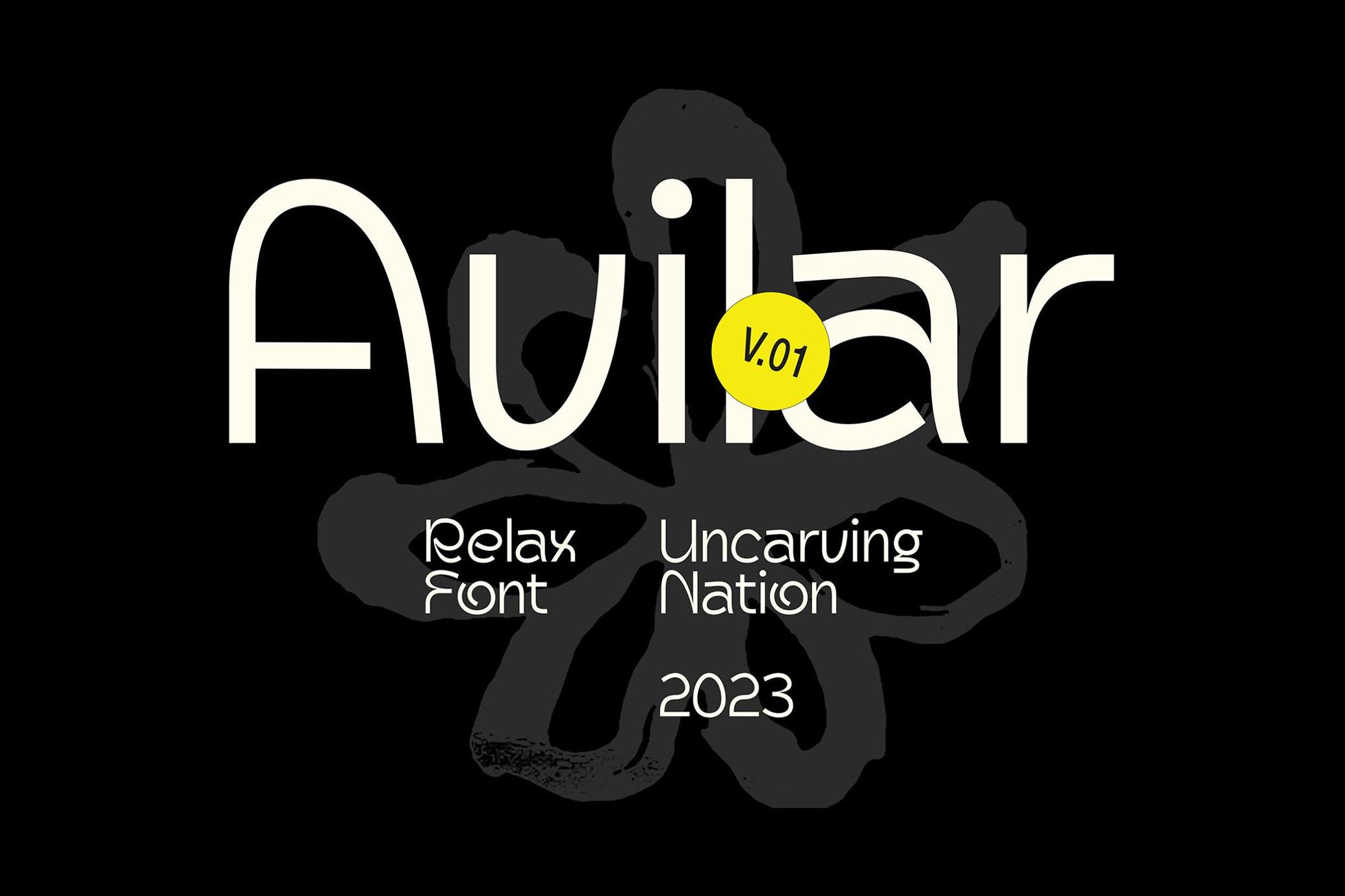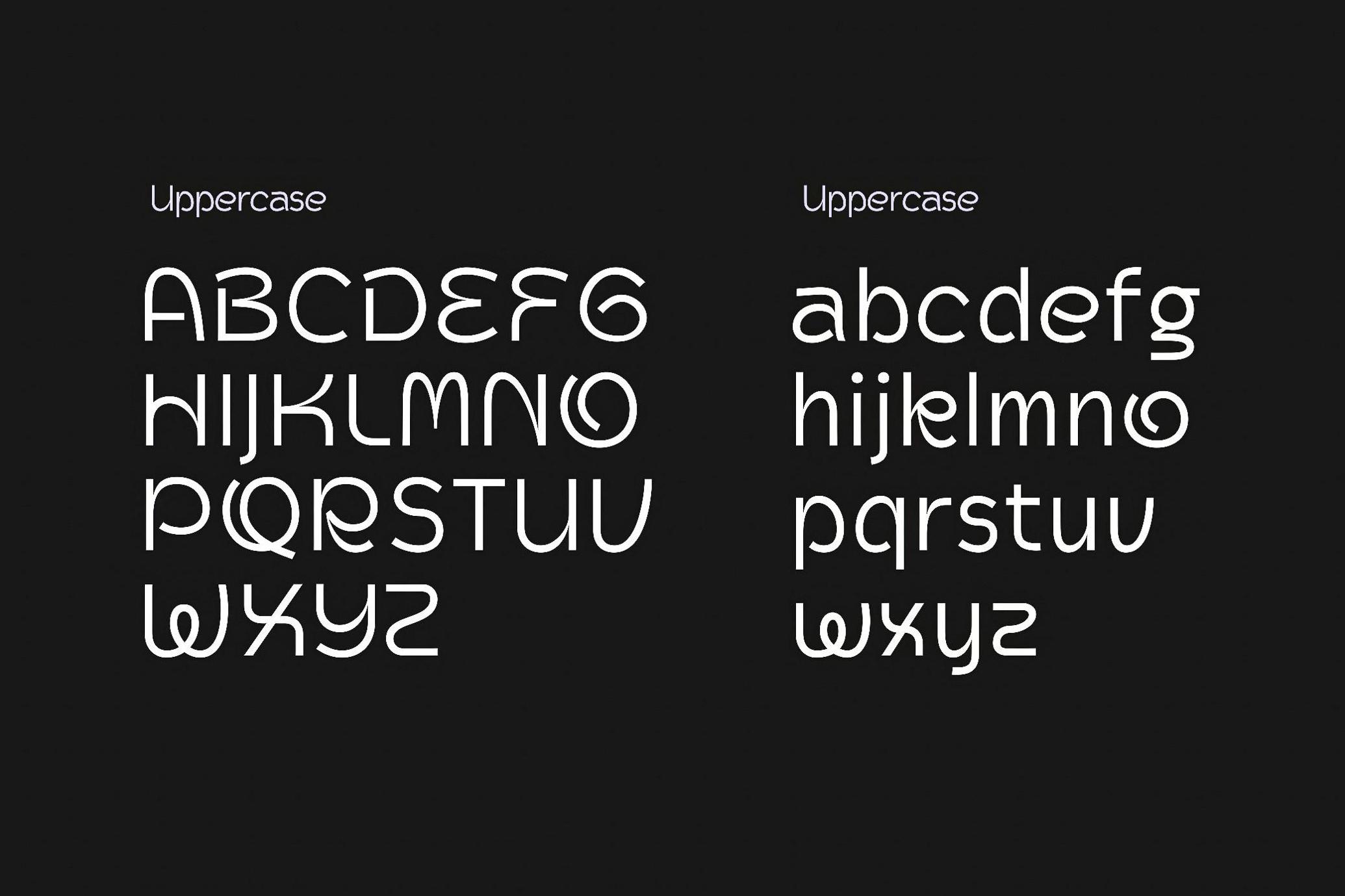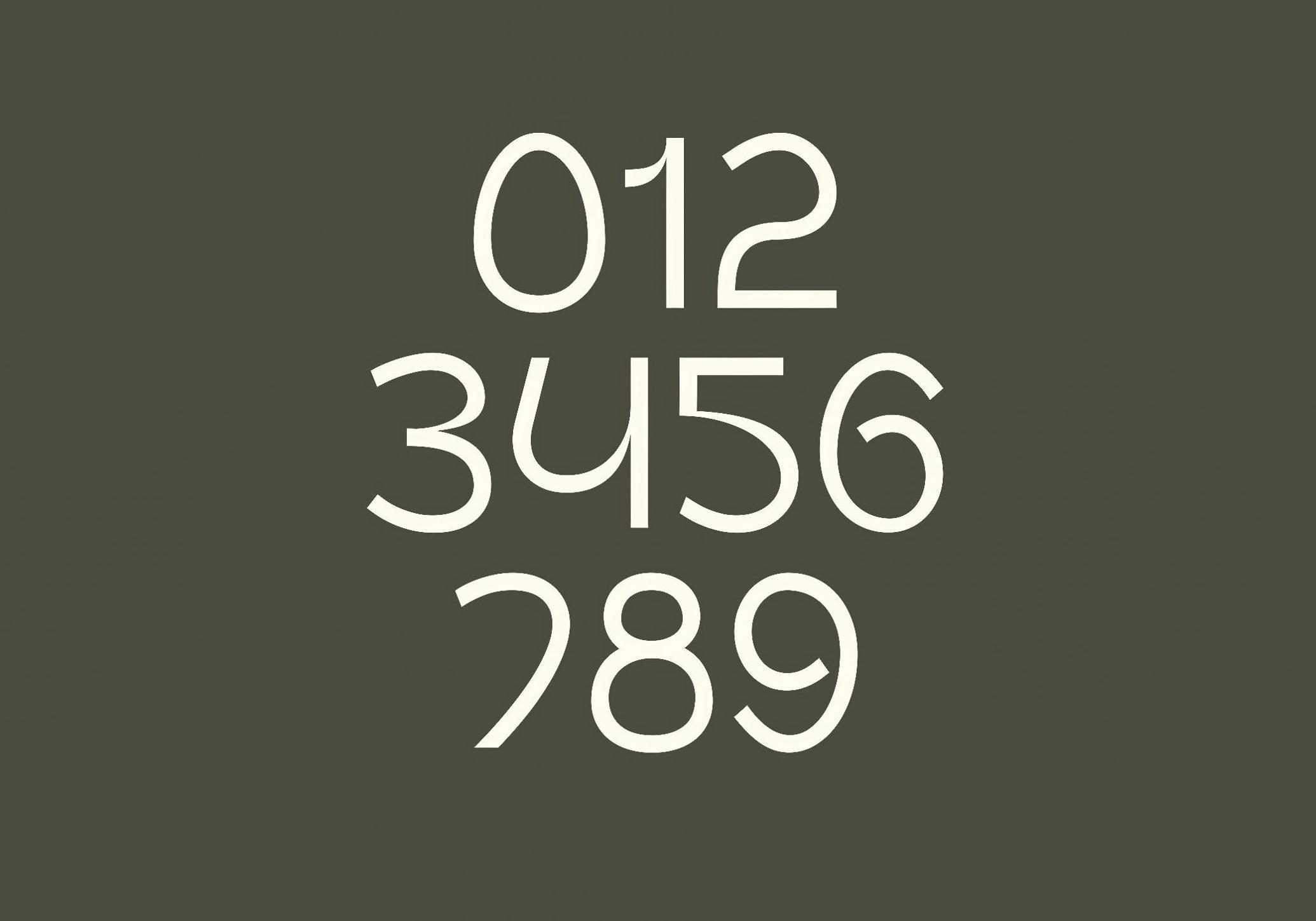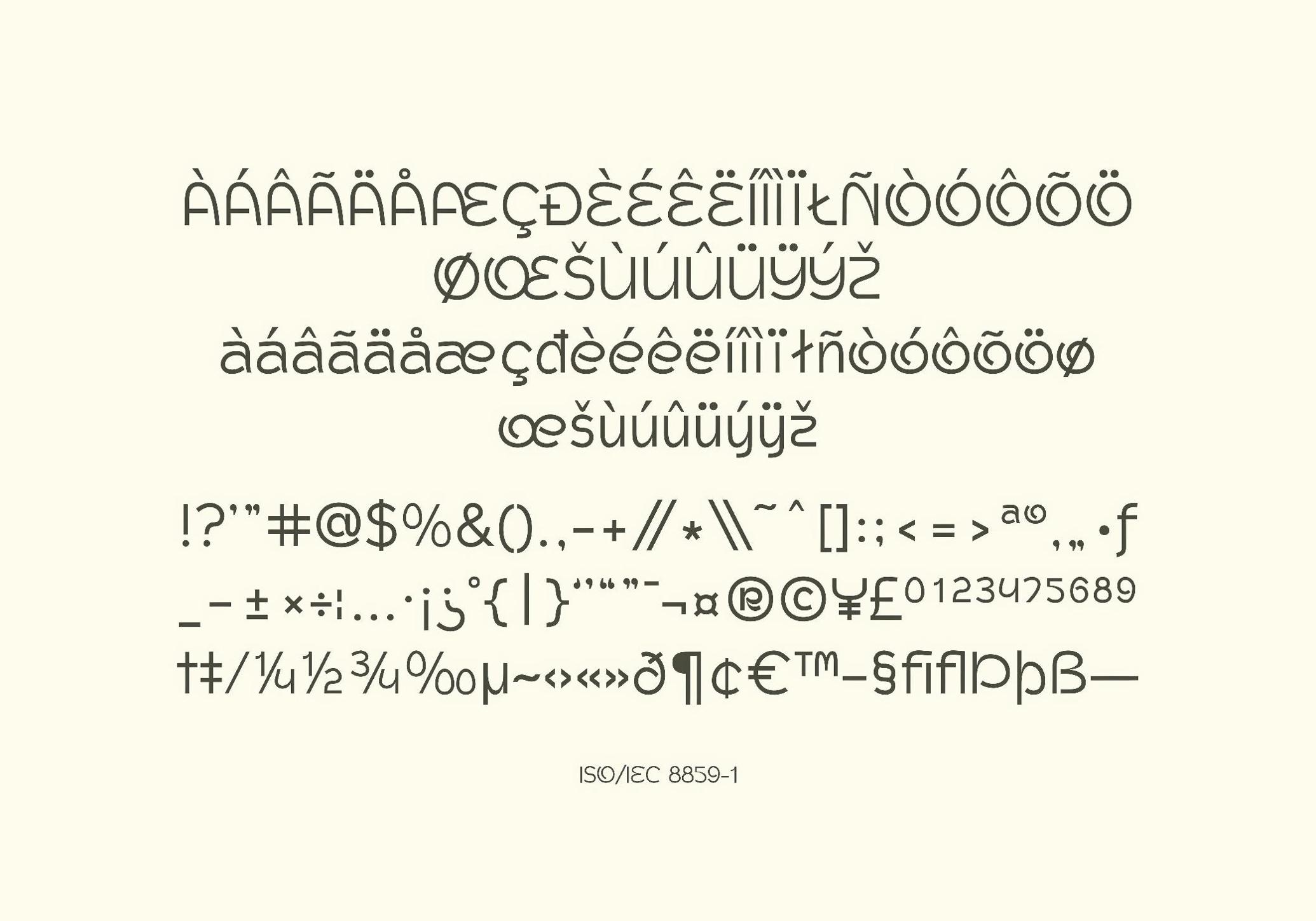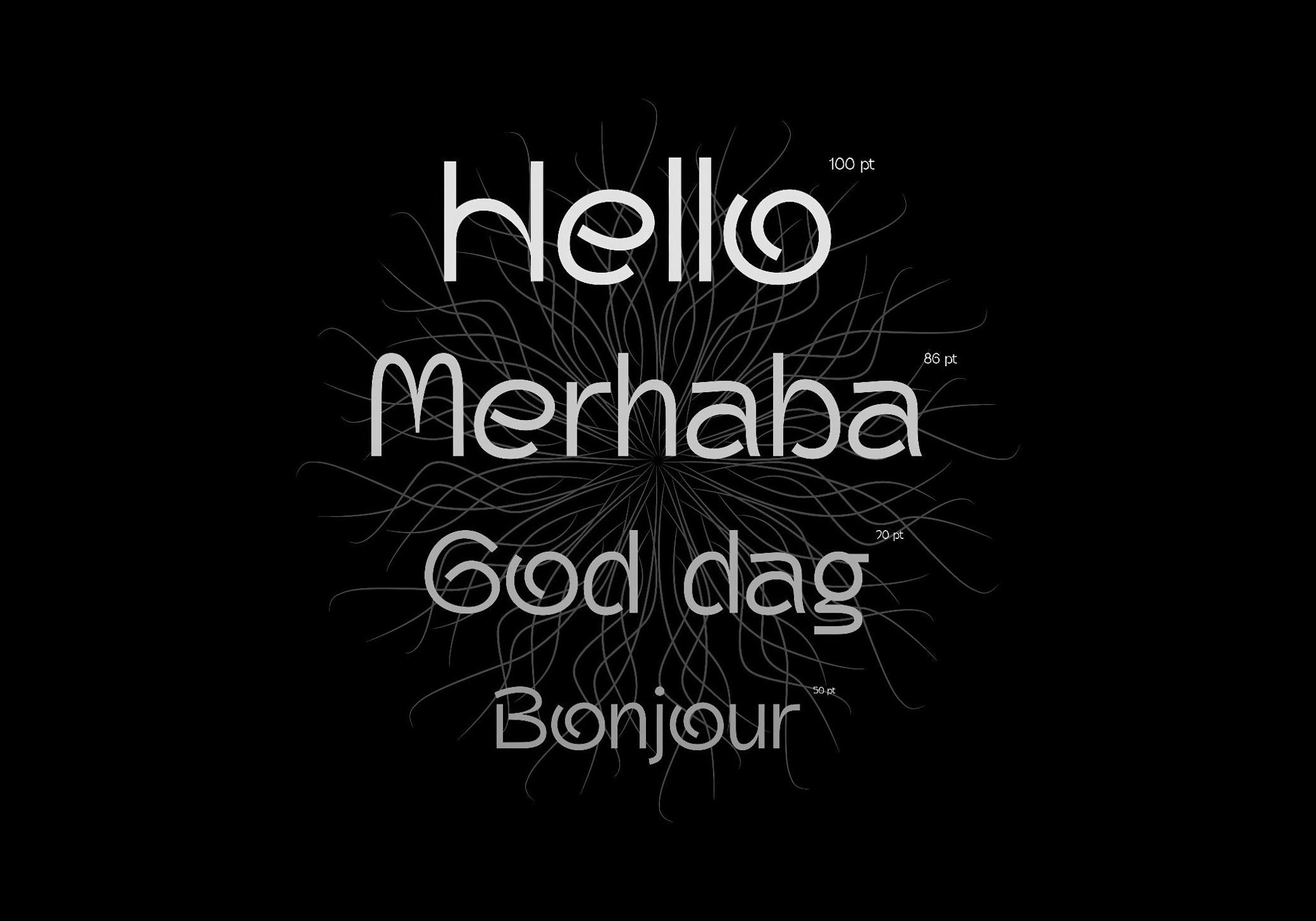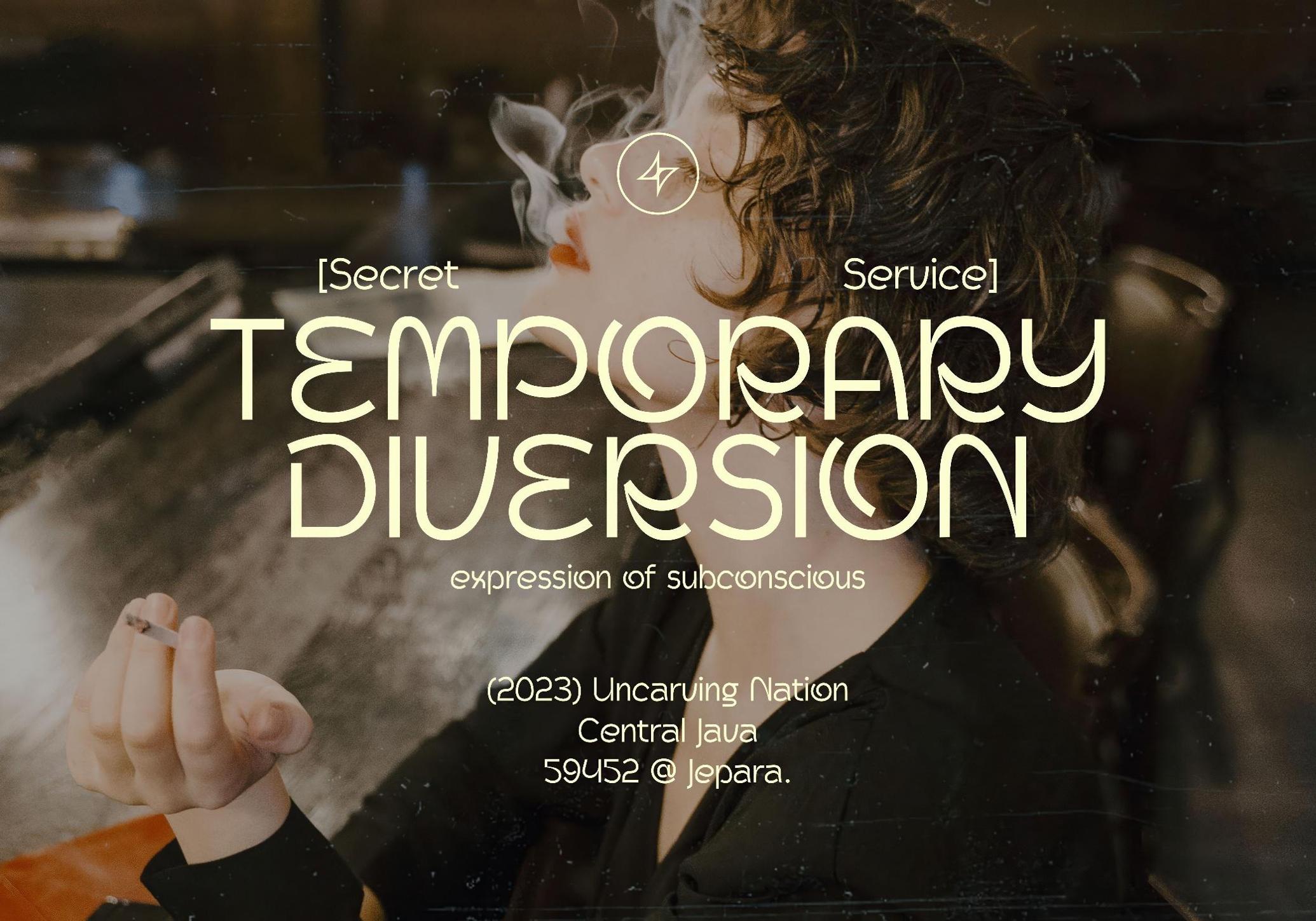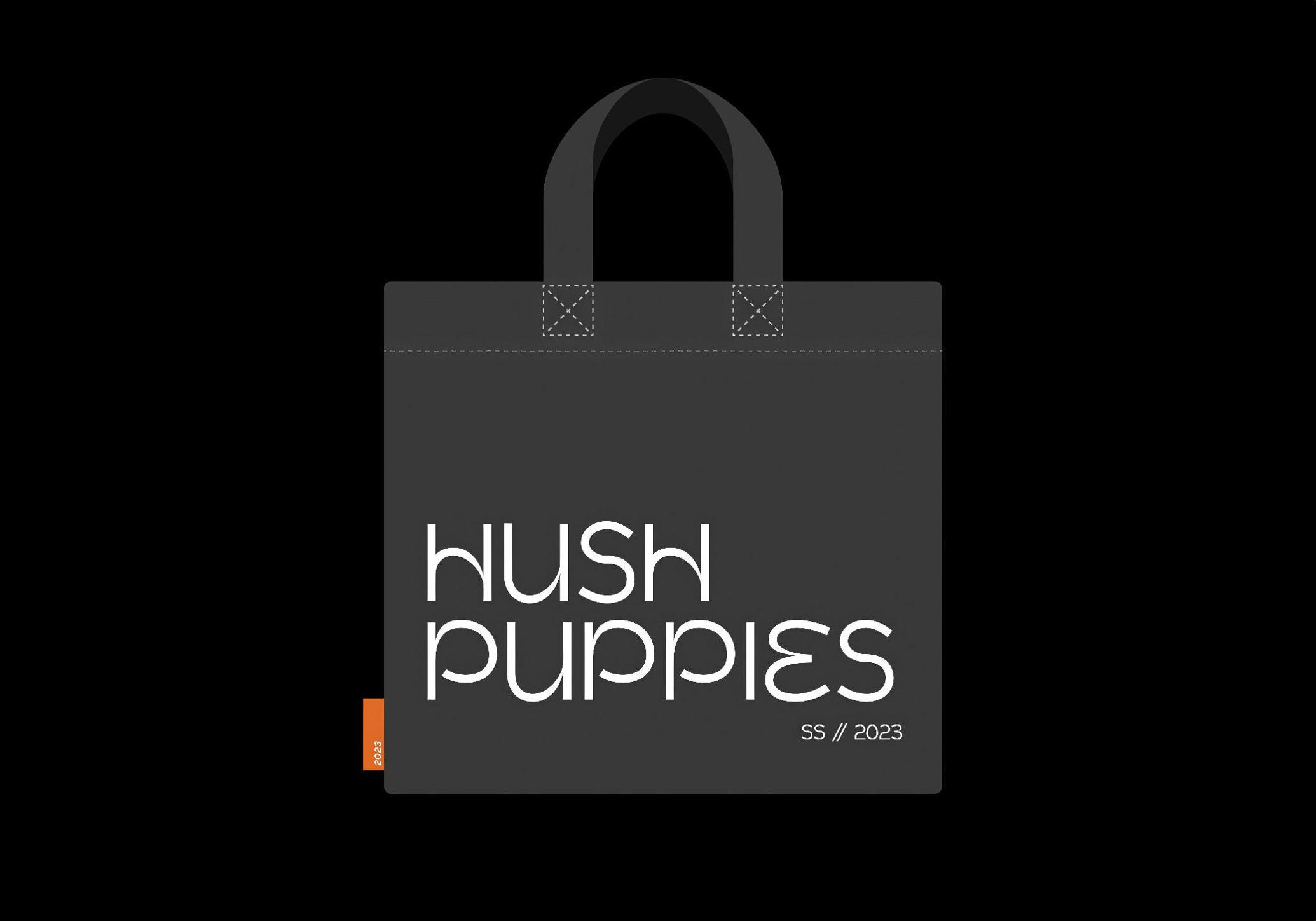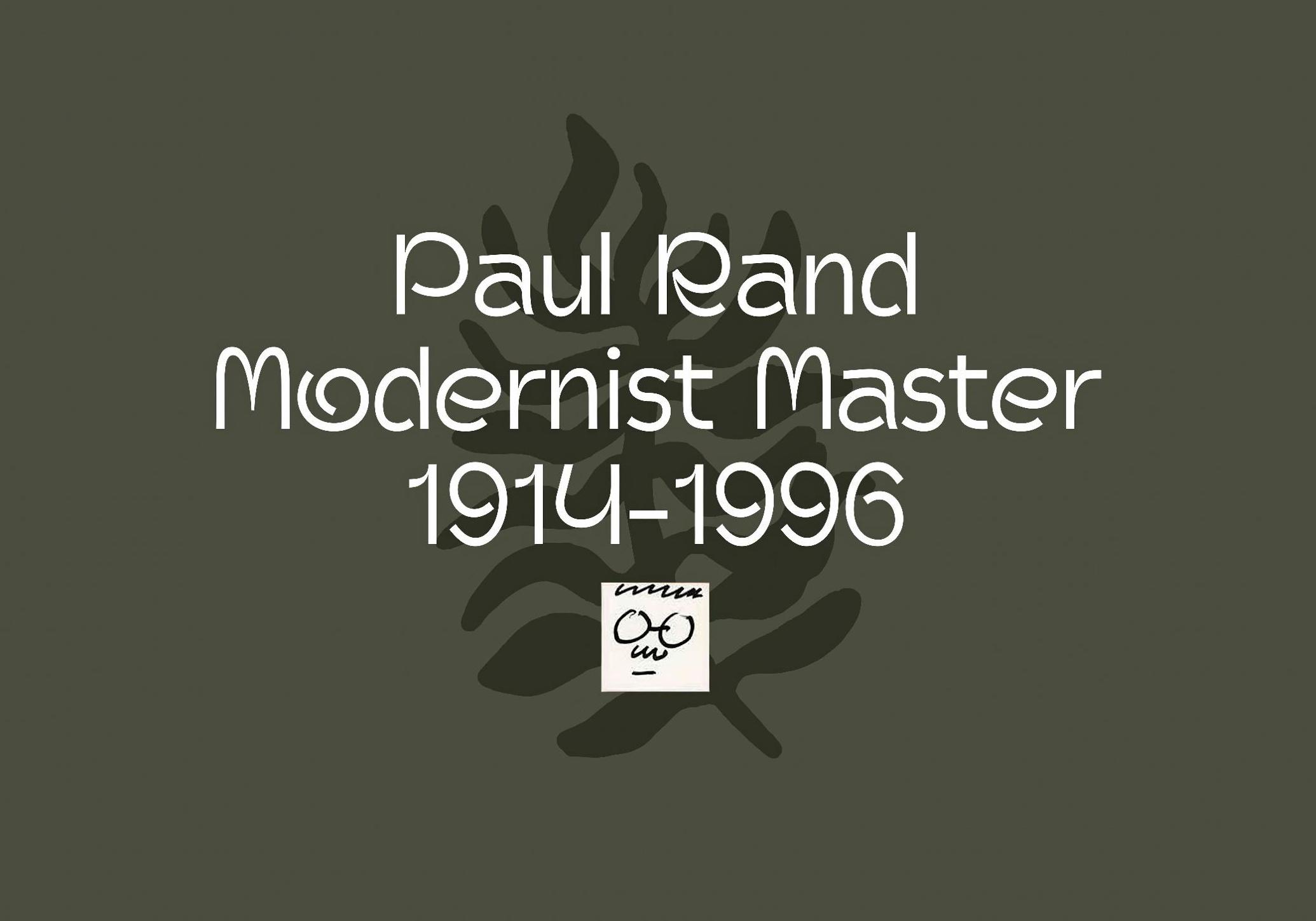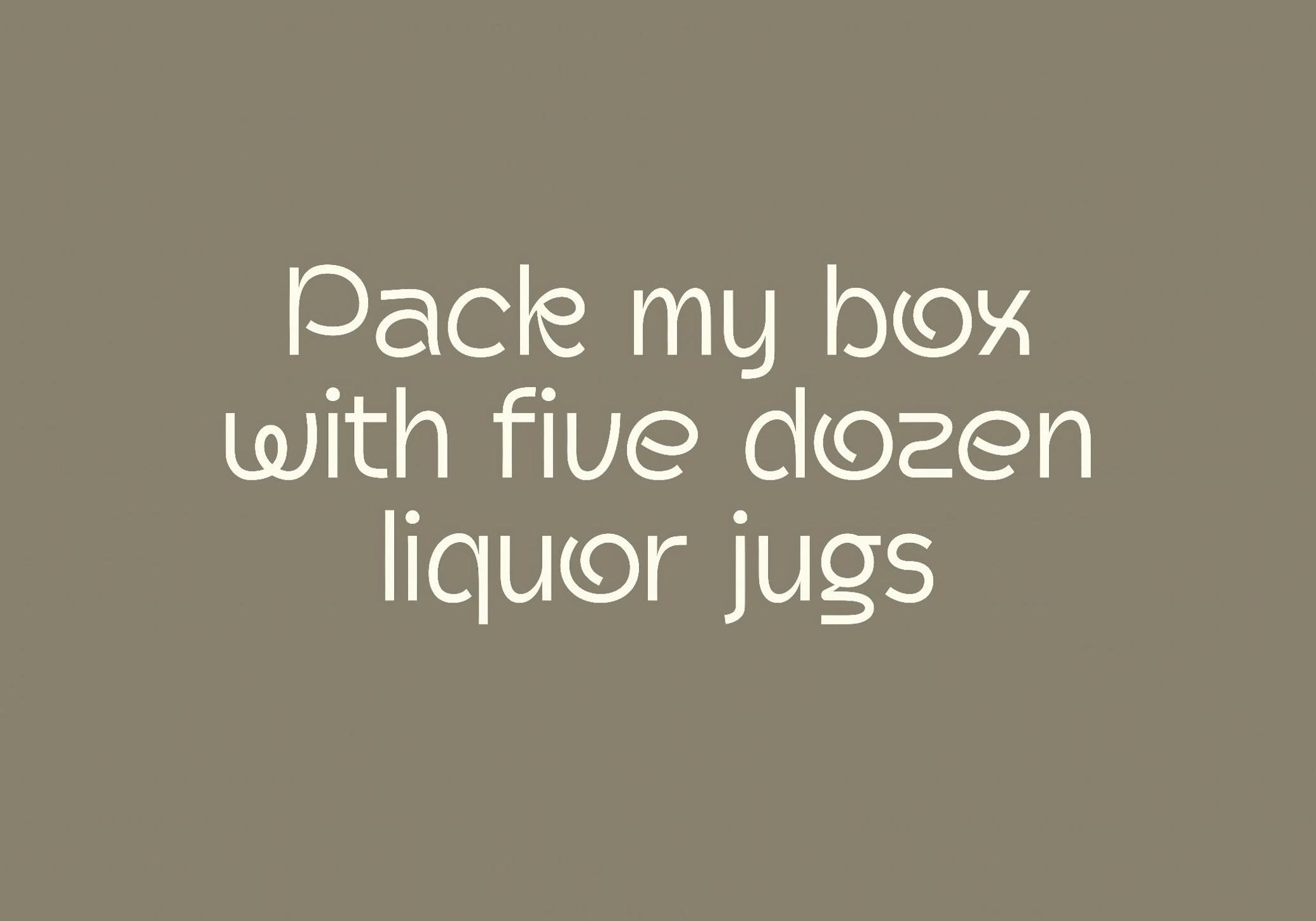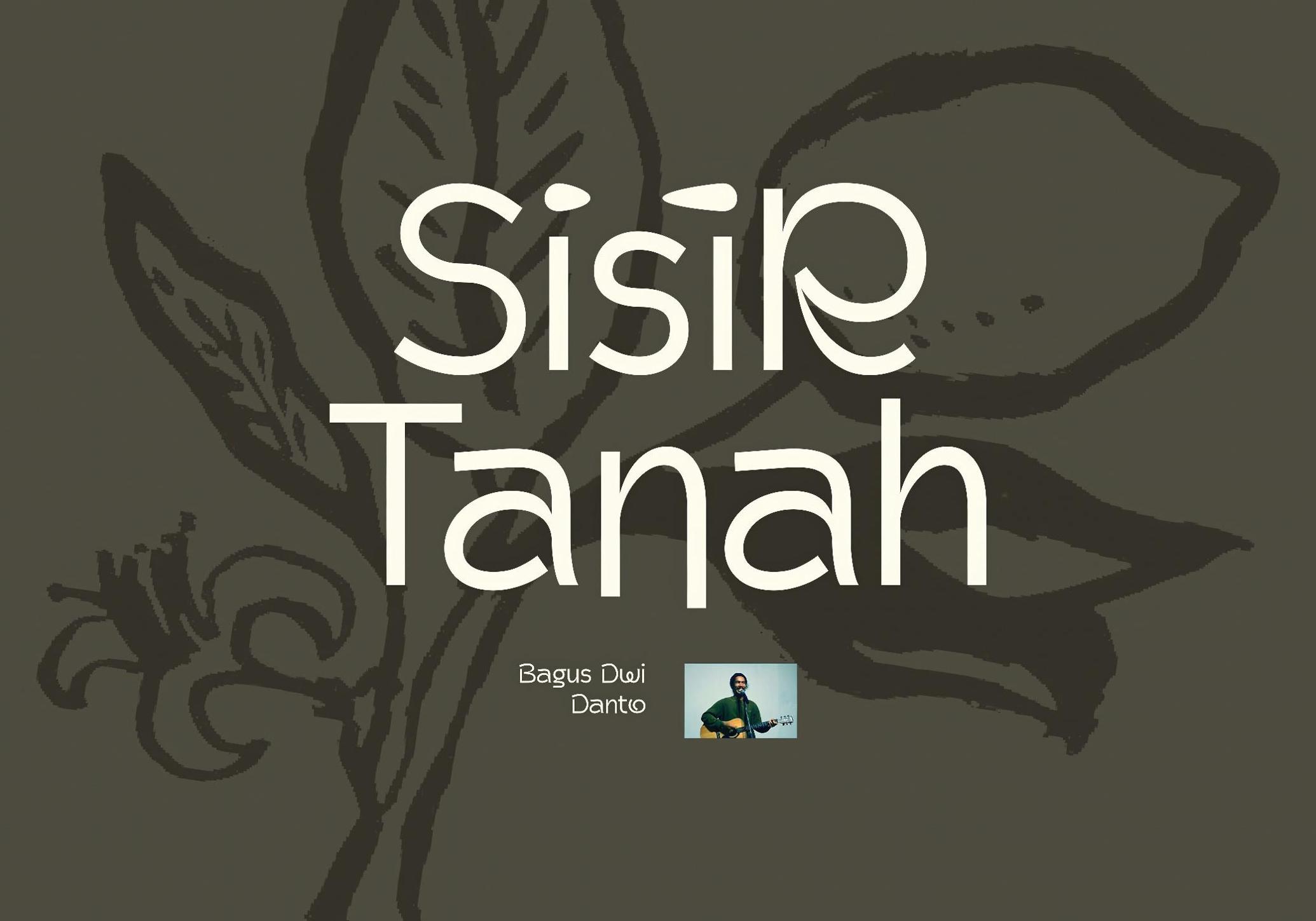
Avilar — Display Font
Avilar leans into soft geometry with a relaxed sans serif structure. It feels grounded enough but still playful, just right for packaging, social media graphics, or contemporary book covers and zines that flirt with minimalism. Actually, this font works well across a variety of formats — from lifestyle magazines and editorial spreads to visual identities, gallery posters, and digital design.
The typeface includes uppercase and lowercase characters, numerals, punctuation, and multilingual support.